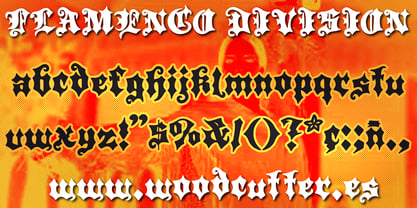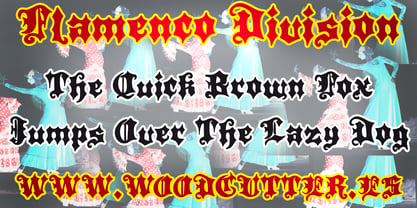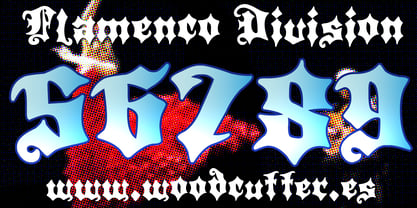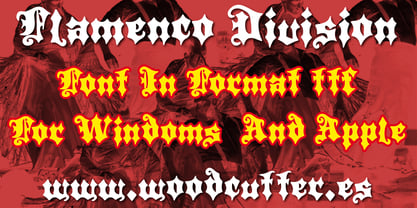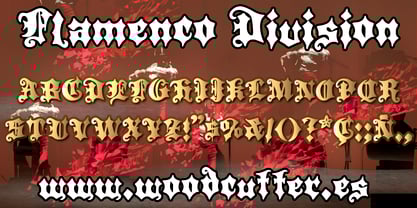
Flamenco Division
by Woodcutter
The Flamenco Division Font Family was designed by Jordi Manero and published by Woodcutter. Flamenco Division contains 1 styles. More about this family
"Flamenco Division" is a font in uppercase and lowercase with a gothic style, featuring extra sharp and wavy letters with a robust and commanding appearance. Its design blends the classic elegance of the gothic aesthetic with a bold and modern twist, where each character exudes strength and drama. The sharp edges and fluid curves give it a sense of movement and depth, making it perfect for projects that aim for strong visual impact. Ideal for striking titles, posters, logos, and designs with a dark or medieval theme.
Designers: Jordi Manero
Foundry: Woodcutter